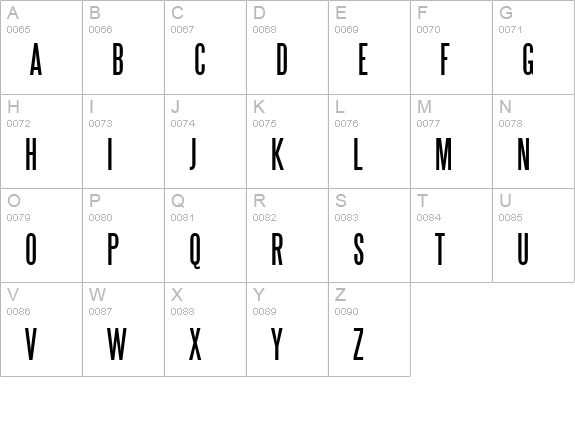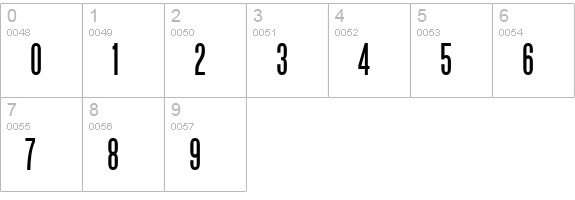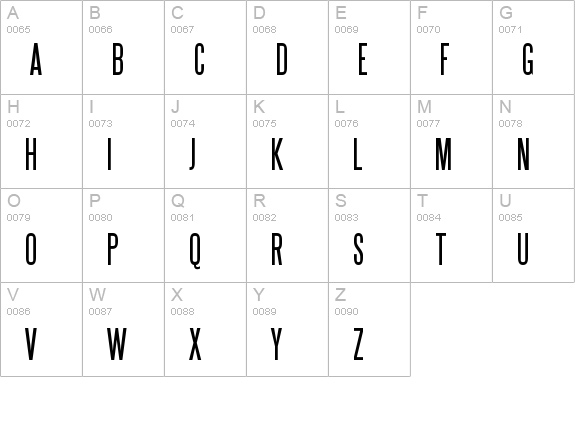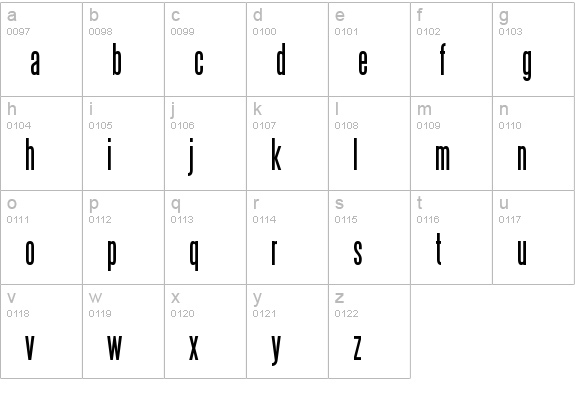
Steelfish Font Details
Steelfish font is a modern and versatile typeface that exudes strength and power. With its sleek and angular letterforms, it captures the essence of steel and conveys a sense of boldness and confidence. This font is perfect for creating impactful headlines, logos, and branding materials that demand attention. What sets Steelfish font apart is not just its striking aesthetics, but also its accessibility. Unlike many other premium fonts, Steelfish is freely available to download at FontsMarket.com. This means that designers, businesses, and individuals can enjoy the benefits of this high-quality font without any financial burden. Whether you're designing a website, crafting a magazine layout, or creating eye-catching posters, Steelfish font offers the flexibility and versatility needed to make a statement. Its clean lines and sharp edges make it highly legible at both large and small sizes, ensuring that your message is conveyed effectively across various mediums. Steelfish font is a true gem in the world of typography, combining style, strength, and accessibility. With its availability as a free download at FontsMarket.com, it opens up a world of creative possibilities for designers and enthusiasts alike. Embrace the power of Steelfish font and make your designs shine with its bold and impactful presence.